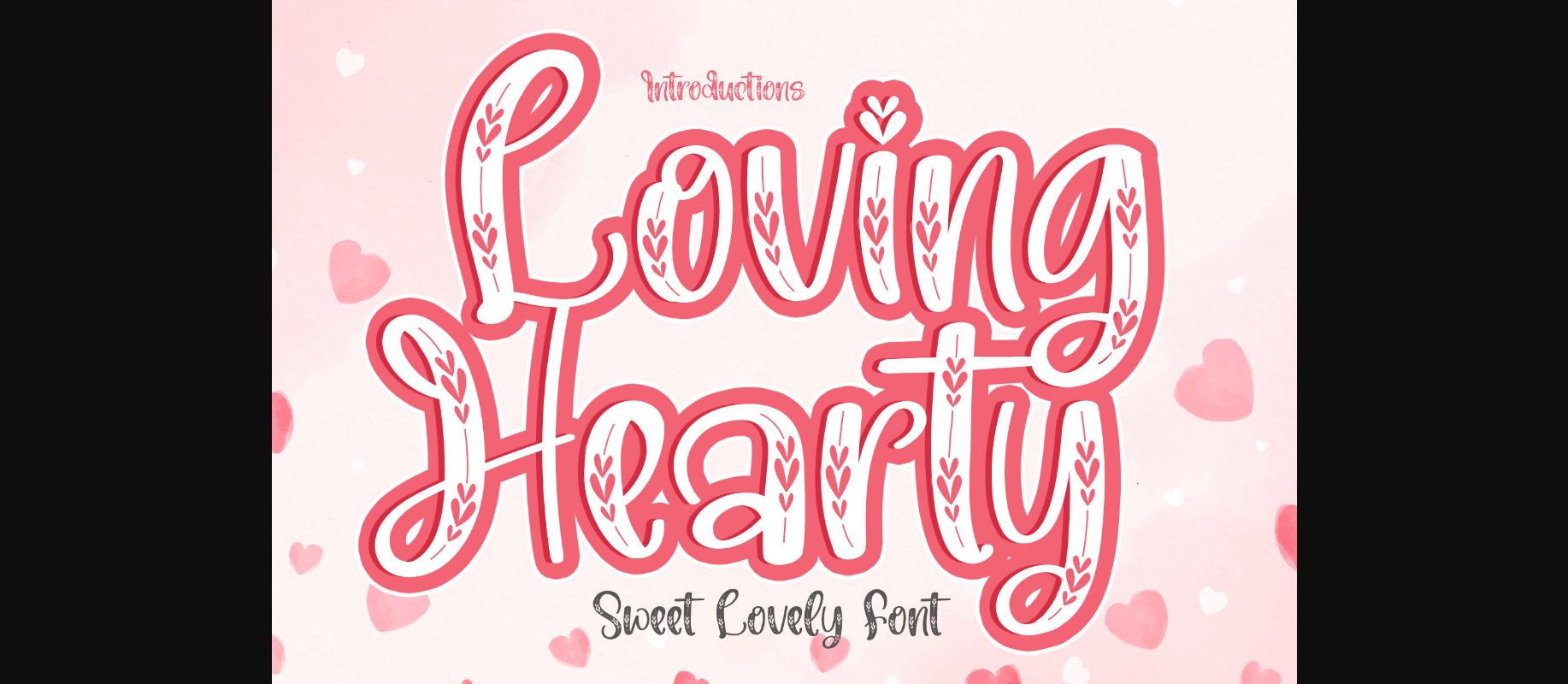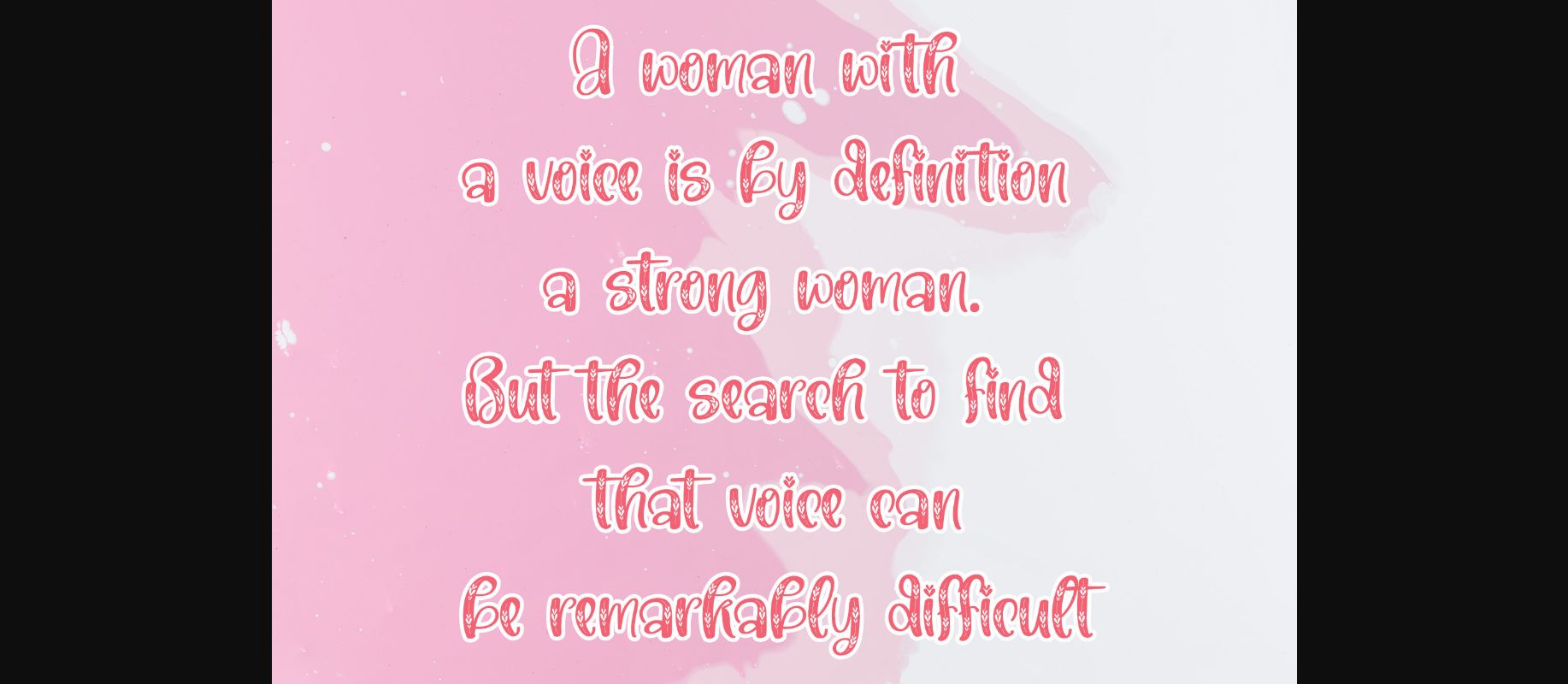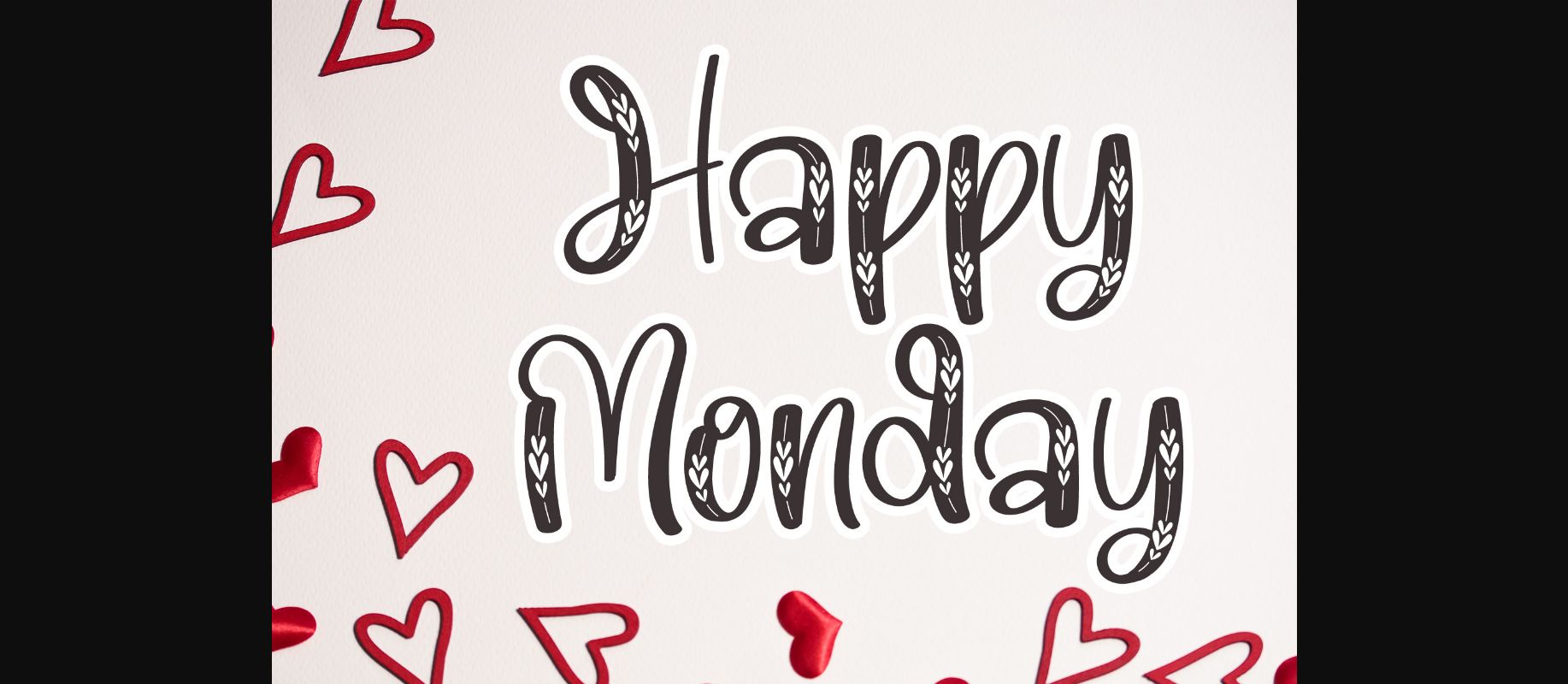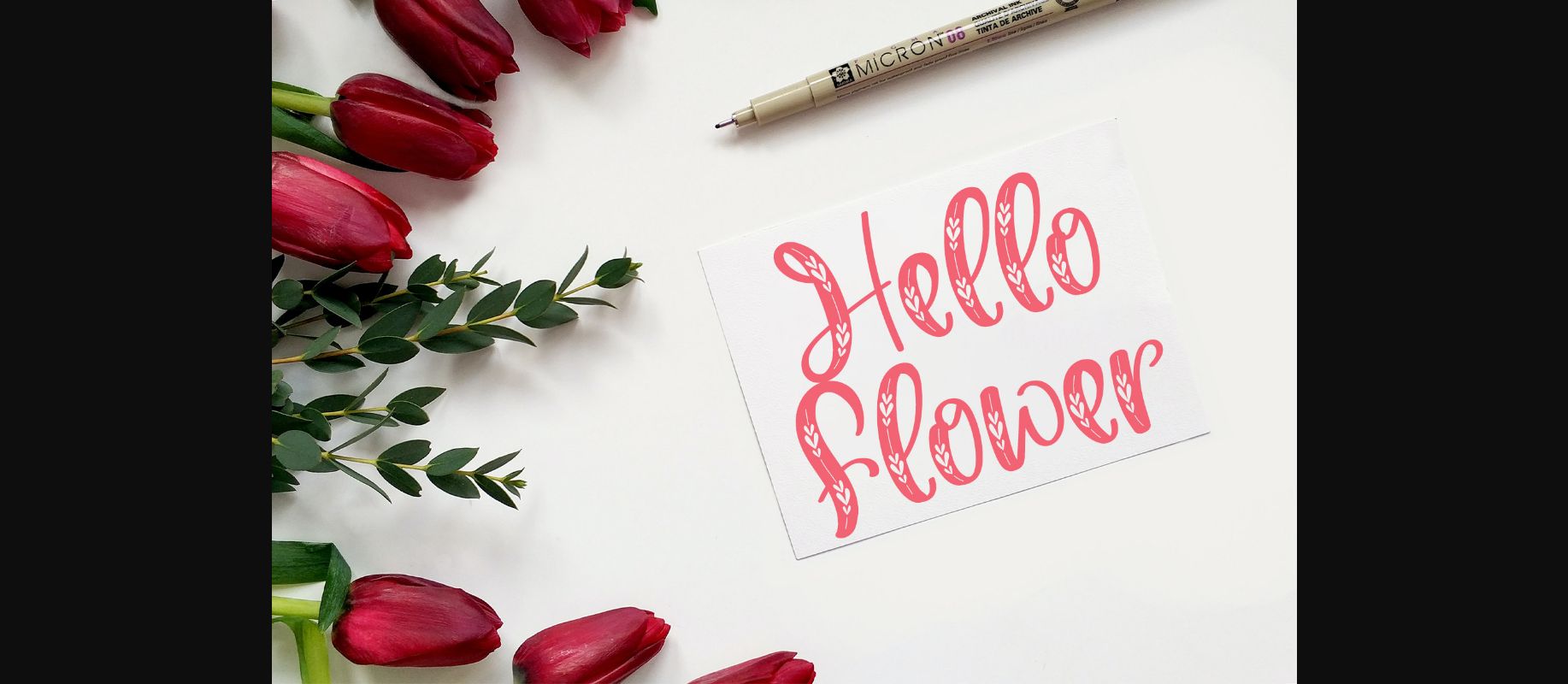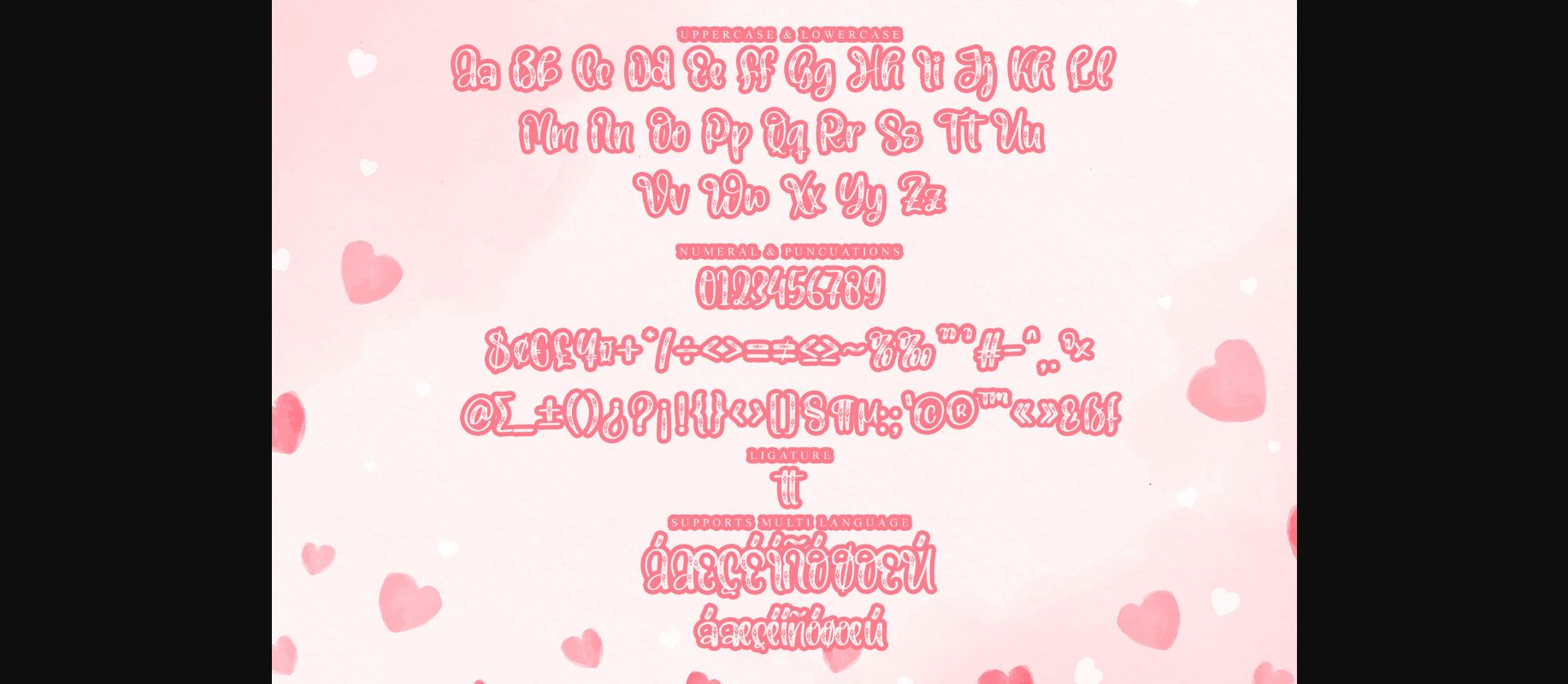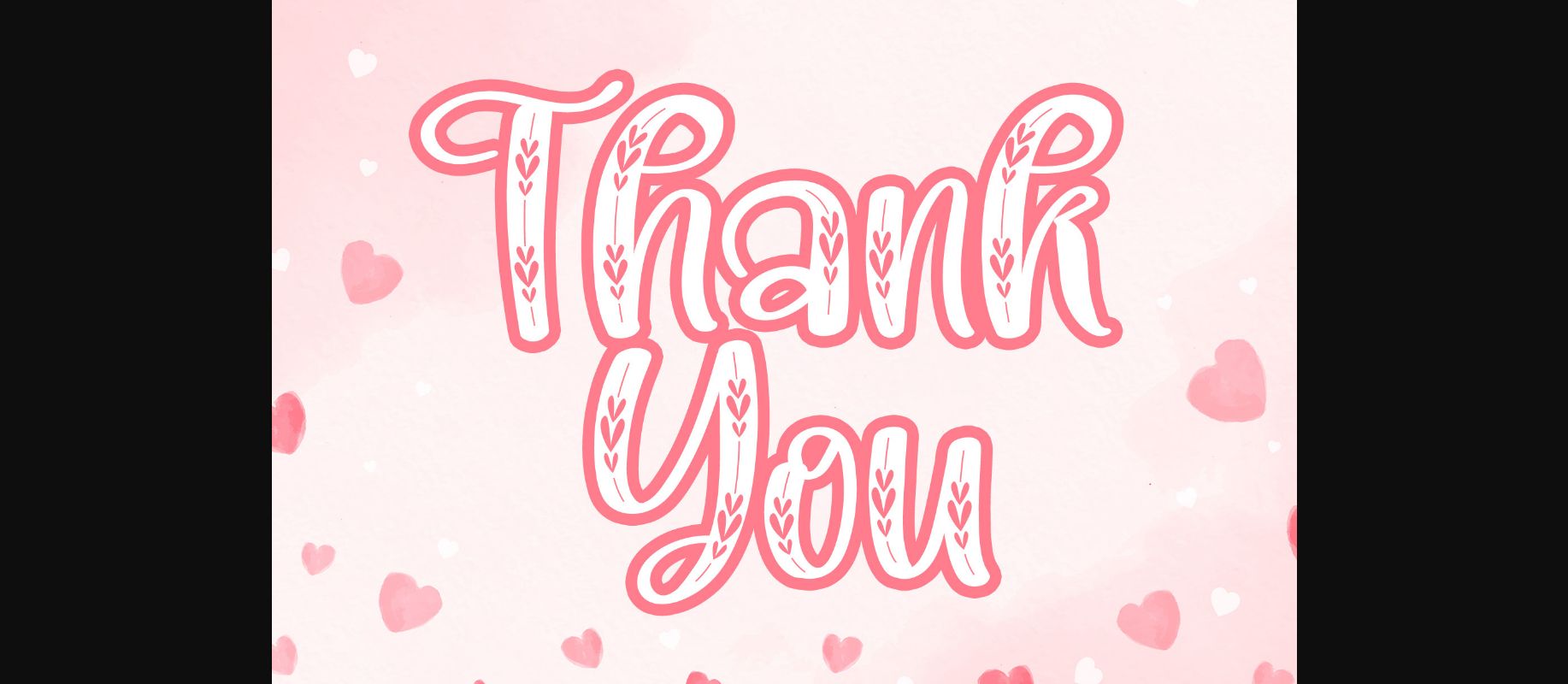
Loving Hearty is a lovely display decorative font perfect for magazines and crafts. Add it to your fonts library, and use it to create spectacular designs!